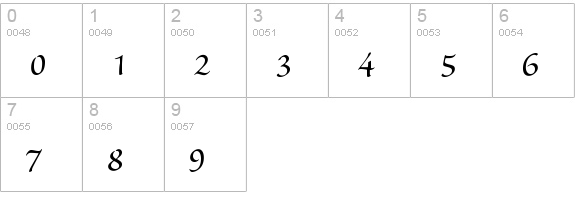
Sanvito Pro Subhead is a captivating and versatile font that effortlessly combines elegance with modernity. With its clean lines and refined curves, this font is perfect for adding a touch of sophistication to any design project. Designed with meticulous attention to detail, Sanvito Pro Subhead is an ideal choice for subheadings, titles, and headings. Its bold and commanding presence demands attention while maintaining a sense of grace and subtlety. One of the most remarkable features of Sanvito Pro Subhead is that it is available for free. This means that designers and enthusiasts alike can freely access and download this remarkable font at FontsMarket.com, without any cost or limitations. Whether you are working on a professional project or simply exploring your creative boundaries, Sanvito Pro Subhead is a font that will elevate your designs to new heights. Its versatility and timeless appeal make it a valuable addition to any typographic library. Crafted with utmost precision, Sanvito Pro Subhead offers a wide range of weights and styles, allowing for endless possibilities in typography. From bold and impactful to subtle and understated, this font can effortlessly adapt to any mood or message. The crisp and clear letterforms of Sanvito Pro Subhead ensure excellent legibility, even at smaller sizes. Its impeccable spacing and kerning further enhance readability, making it an excellent choice for both print and digital applications. Whether you are designing a magazine spread, logo, website, or any other creative endeavor, Sanvito Pro Subhead is a font that will not disappoint. Its timeless elegance, versatility, and the fact that it is freely available for download at FontsMarket.com, make it an invaluable asset for any designer or typographer.